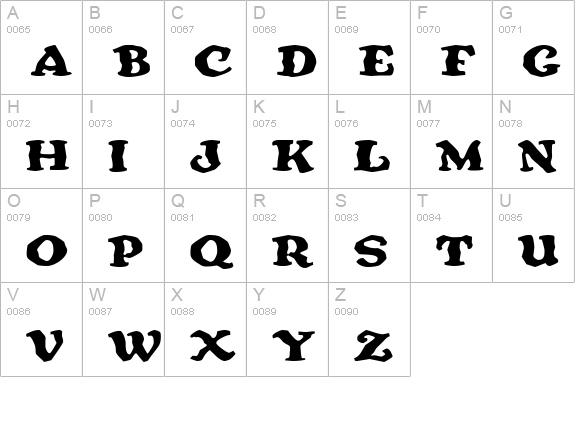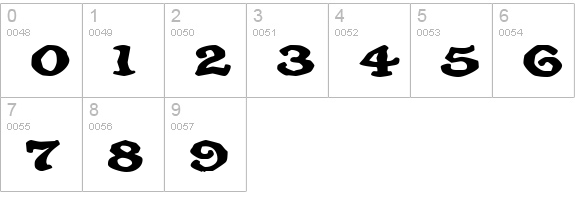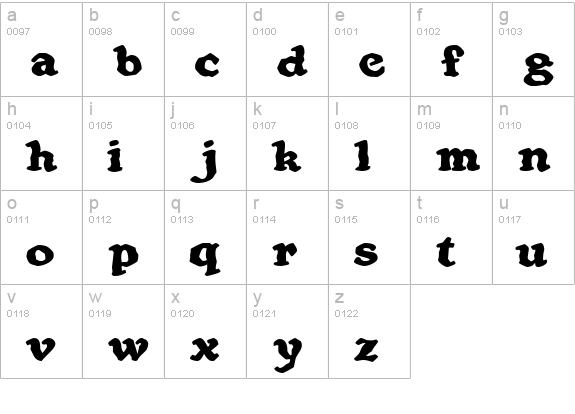
OatmealExtended Font Details
OatmealExtended is a versatile and elegant font that conveys a sense of warmth and comfort. Its rounded edges and smooth, flowing lines give it a friendly and approachable appearance, making it perfect for a wide range of design projects. Whether you're creating invitations, posters, or branding materials, OatmealExtended is sure to add a touch of sophistication to your work. This beautiful font is not only visually appealing but also incredibly easy to read, making it a great choice for both display and body text. Its extended style provides a unique and modern look that will make your designs stand out. Best of all, OatmealExtended is available for free download at FontsMarket.com, allowing you to access this high-quality font without breaking the bank. Don't miss out on the opportunity to enhance your projects with the timeless charm of OatmealExtended.